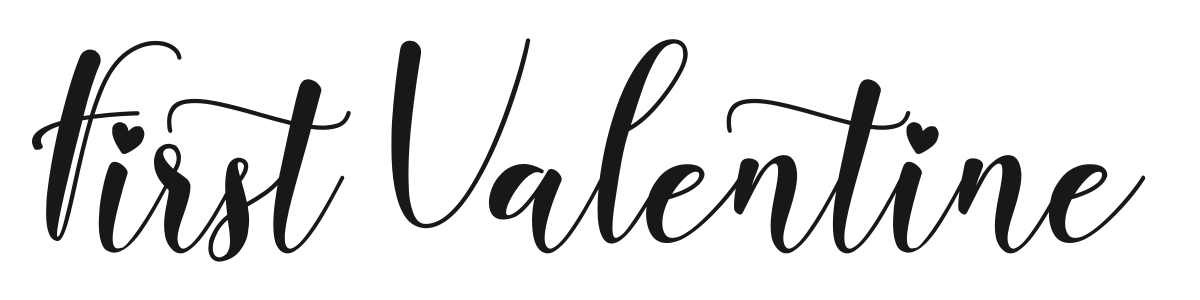
First Valentine
by Sarif Letter
First Valentine is a bold casual script with lush swashing strokes and a distinctly romantic energy. The high contrast between thick stems and wispy hairlines gives it an authentic calligraphic presence, while the bouncy rhythm keeps it feeling approachable rather than stiff. There's a small heart tucked into the design that says exactly what kind of work this font is made for.